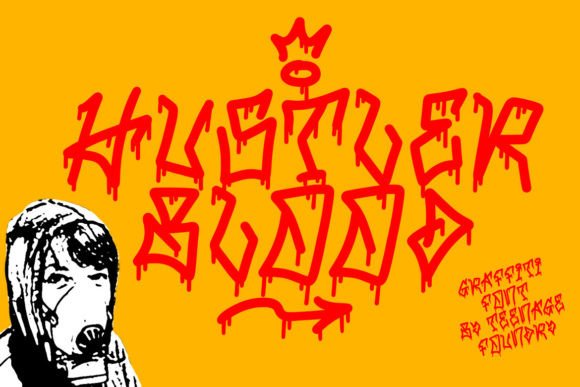
Introducing Hustler Blood: Unleash Your Creative Inner Rebel!
In the realm of design, where creativity reigns supreme, there exists a font that embodies the essence of rebellion and nonconformity—Hustler Blood. This exceptional decorative font, crafted by the visionary minds of teenagefoundry, is a true game-changer in the world of typography.
Picture yourself as a renegade, a trailblazer who dares to defy the mundane and embrace the extraordinary. Hustler Blood is your weapon of choice, your artistic accomplice in crime. With its monoline style and vibrant paint splatters, this font is a beacon of individuality and a testament to your unwavering spirit.
When you choose Hustler Blood, you're not just downloading a font; you're acquiring a gateway to a world where imagination runs wild. This font is your passport to crafting designs that break the mold, capturing attention, and leaving an indelible mark on the hearts and minds of your audience.
Whether you're a seasoned designer or just starting out on your creative journey, Hustler Blood is the perfect font to ignite your passion and elevate your projects to new heights. Its versatile nature makes it suitable for a diverse range of applications, from logos and posters to social media graphics and website designs.
So, break free from the shackles of conformity and embrace the rebellious spirit within. Let Hustler Blood be your artistic ally, propelling you to the forefront of creativity. Dare to be different, dare to be bold, and most importantly, dare to be yourself.
Hustler Blood: The Ultimate Weapon for Creative Revolutionaries.